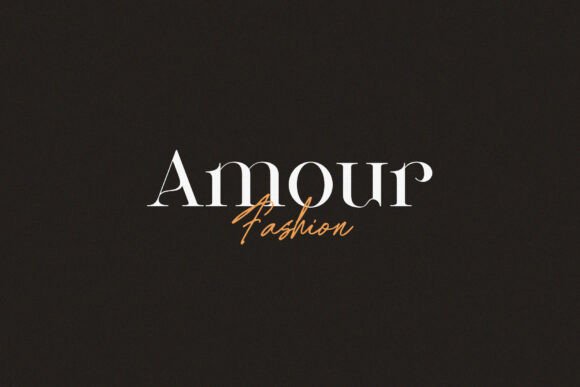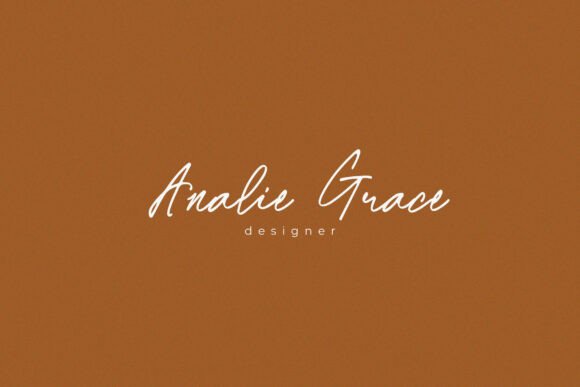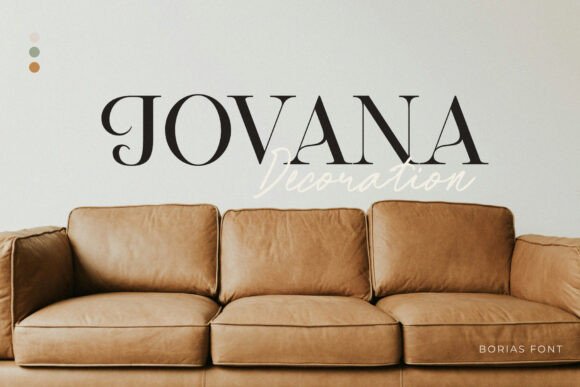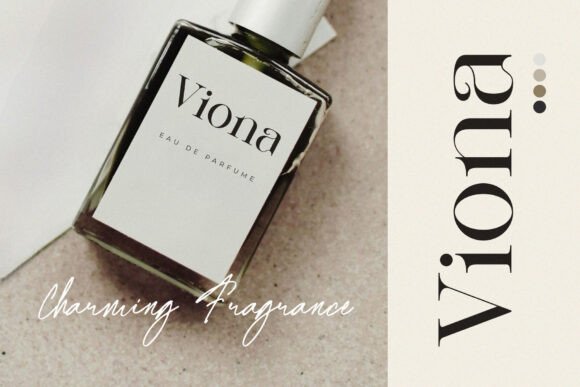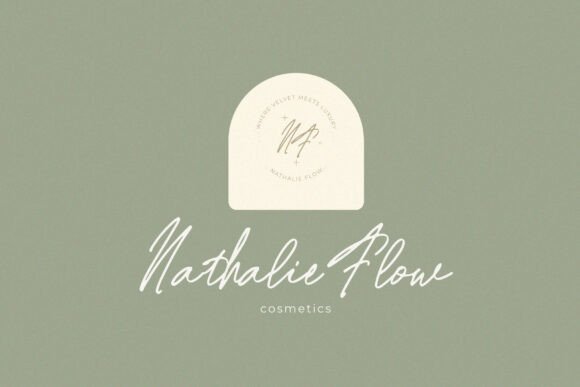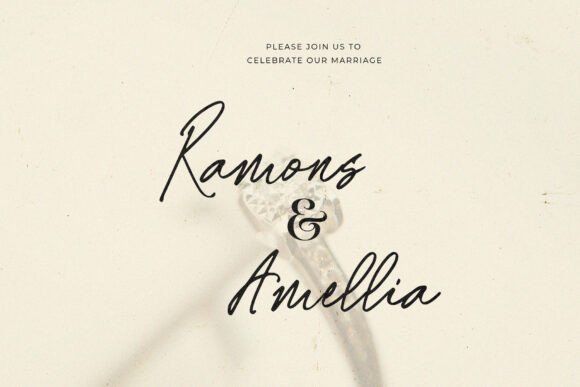
Borias Font Duo: Elevate Your Designs with Luxurious Elegance
In the world of typography, finding the perfect font that embodies both luxury and class can be a daunting task. However, Borias Font Duo has emerged as a game-changer, offering a seamless blend of a smooth signature script font and an elegant modern serif font. This powerful combination makes Borias an ideal choice for a wide range of creative projects, from branding and logos to wedding invitation designs and beyond.
The Perfect Harmony of Styles
Borias Font Duo is not just a font; it’s a statement of sophistication and elegance. The duo brings together two distinct yet complementary styles that can elevate any design project. On one hand, the signature handwritten script style is soft, relaxed, and full of character, providing a personal and approachable feel to your designs. On the other hand, the modern serif appearance, with its subtle details, gives a professional and elegant impression, perfect for those looking to add a touch of luxury to their work.
One of the standout features of Borias Font Duo is its versatility. Whether you’re working on branding, logos, invitation designs, social media content, product packaging, or editorials, Borias has got you covered. The font duo’s ability to adapt to various design needs makes it an invaluable asset for designers and crafters looking to create stunning, high-quality work.
Signature Handwritten Style Script
The script component of Borias Font Duo is designed to mimic the fluidity and natural flow of handwritten text. This aspect of the font is perfect for adding a personal touch to your designs, making them stand out with a unique and artistic flair. The soft and relaxed nature of the script ensures that your designs feel approachable and engaging, ideal for projects that require a more intimate and less formal tone.
Modern Serif Appearance
Complementing the script font is the modern serif component of Borias, which brings a level of sophistication and professionalism to your designs. The subtle details embedded within the serif font ensure that it doesn’t feel too traditional or overbearing, making it perfect for modern design projects that require a touch of elegance. This aspect of Borias is particularly suited for titles, headings, and any design element where you want to make a strong, yet refined statement.
Why Choose Borias Font Duo?
Borias Font Duo stands out in the crowded world of typography for several reasons:
- Luxurious and Classy Impression: Borias is specifically designed to give your designs a luxurious and classy look, setting them apart from more generic fonts.
- Versatility: From branding to wedding invitations, and from social media graphics to product packaging, Borias can be used across a wide range of projects.
- Harmonious Combination: The blend of a smooth signature script and an elegant modern serif font offers a unique combination that can cater to diverse design needs.
- Ease of Use: Borias Font Duo is easy to integrate into your design workflow, allowing you to create stunning designs with minimal effort.
Adding a Touch of Sophistication to Your Projects
Incorporating Borias Font Duo into your design projects is a straightforward process that can significantly elevate the quality and aesthetic of your work. Here are a few tips on how to make the most out of Borias:
- Mix and Match: Experiment with combining both the script and serif components of Borias to create visually appealing contrasts in your designs.
- Play with Sizes: Utilize different font sizes to create a hierarchy in your designs, making sure that your message is conveyed clearly and effectively.
- Customize: Don’t be afraid to tweak the font to fit your project’s specific needs. Borias Font Duo is versatile enough to be adjusted for various design contexts.
| Author | ToniStudio |
Borias Font Duo is a powerful tool for designers and crafters looking to infuse their projects with a sense of luxury and elegance. Its unique combination of a smooth signature script font and an elegant modern serif font makes it an incredibly versatile asset for a wide range of design applications. Whether you’re aiming to create stunning logos, elegant wedding invitations, or compelling brand identities, Borias Font Duo is the perfect choice. Add a touch of sophistication and uniqueness to your projects with Borias, and watch your designs transform into masterpieces of elegance and refinement.